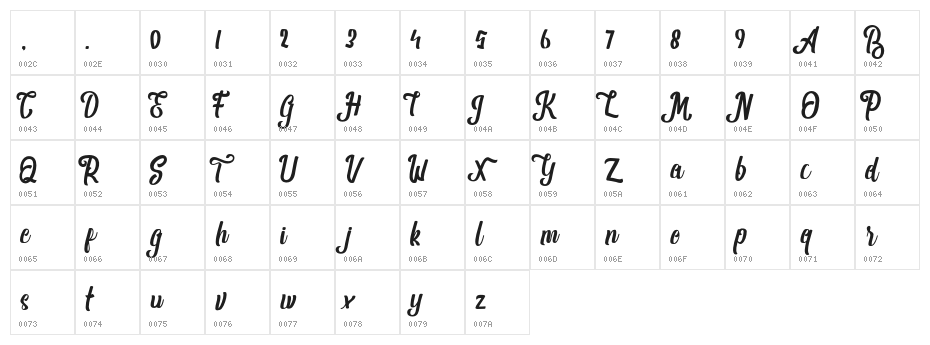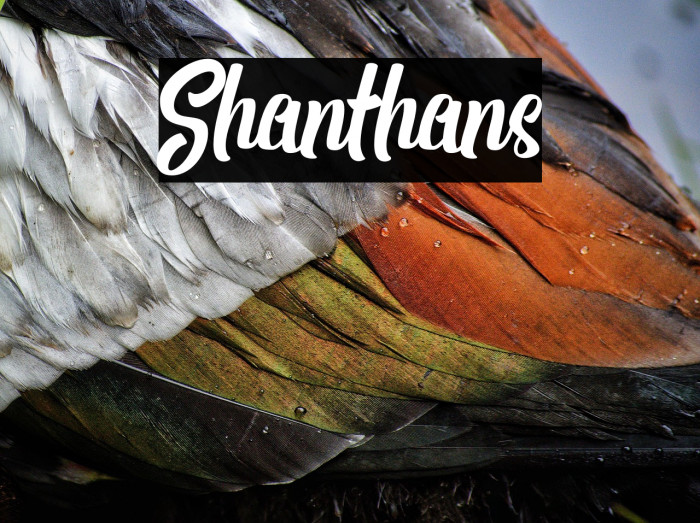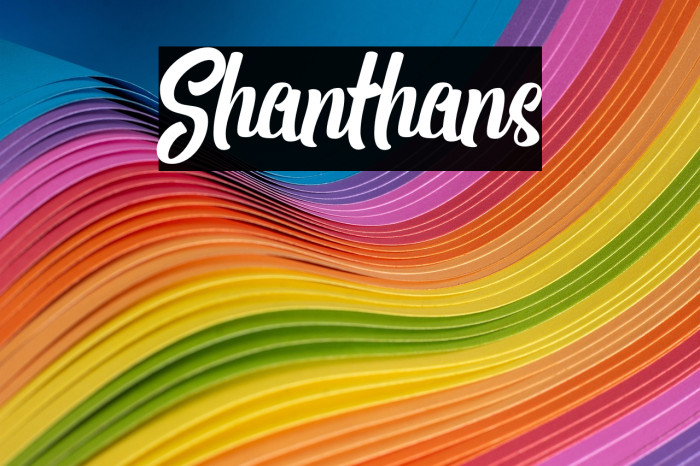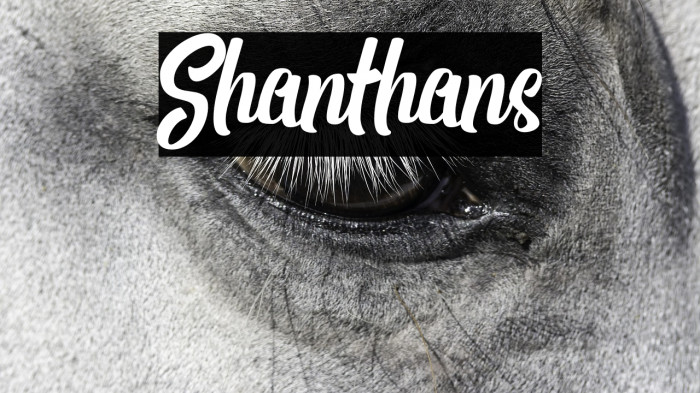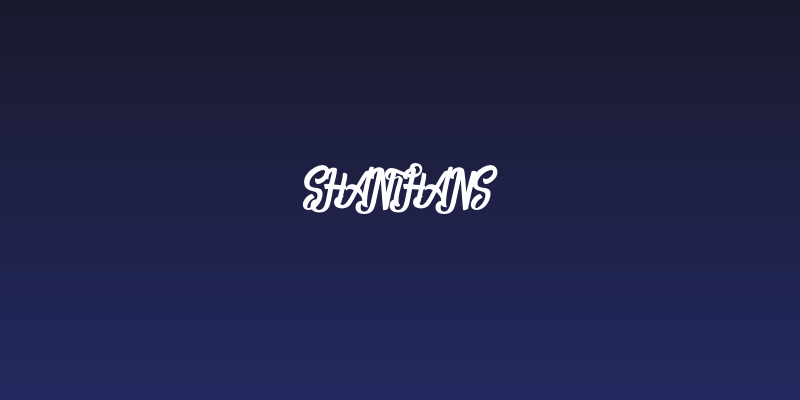
Shanthans Font
Shanthans Description
This font features a bold and flowing script style, characterized by its elegant and connected letterforms. The uppercase letters are particularly ornate, with sweeping curves and flourishes that give a sense of movement and sophistication. The lowercase letters maintain a consistent style, with smooth transitions and a slightly more compact form. The numerals are distinct and easy to read, while still retaining the overall script aesthetic. Special characters are included, matching the decorative style of the alphabet. This font is ideal for projects that require a touch of elegance and flair.
| Use Case | Logos, Headlines, Invitations |
| Proposed Projects | Ideal for wedding invitations, branding, logos, and elegant signage. |